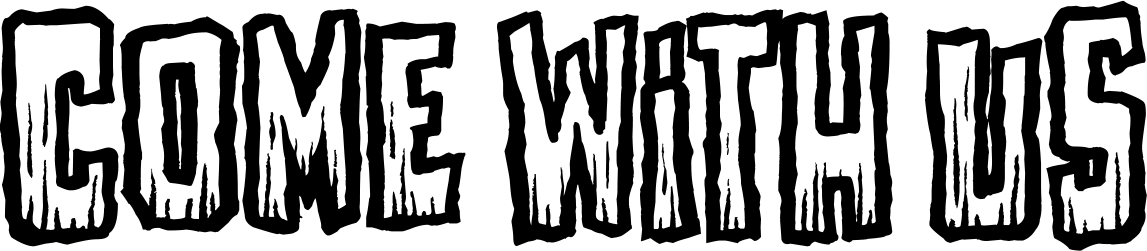
Come With Us Font
One of the most effective content production strategies is to use fonts like Come With Us and convey a sense of dread and excitement to the audience. Come With Us is a horror font that does not support lowercase letters.…
One of the most effective content production strategies is to use fonts like Come With Us and convey a sense of dread and excitement to the audience. Come With Us is a horror font that does not support lowercase letters. The use of these fonts is very useful in youth-specific content such as video game poster design.